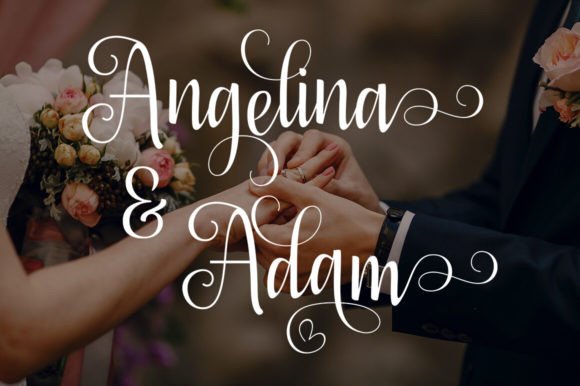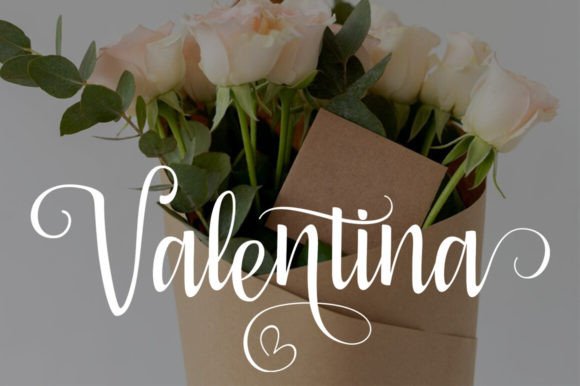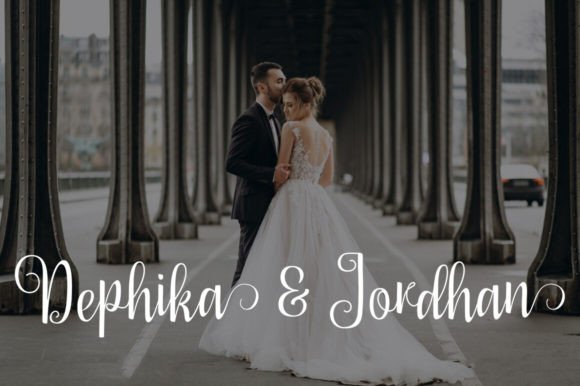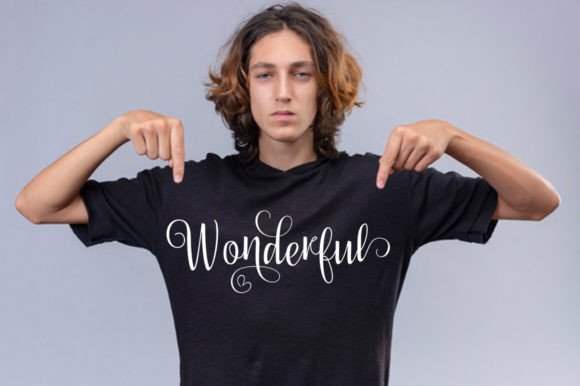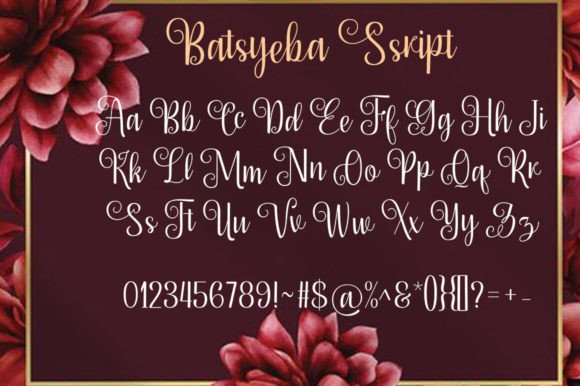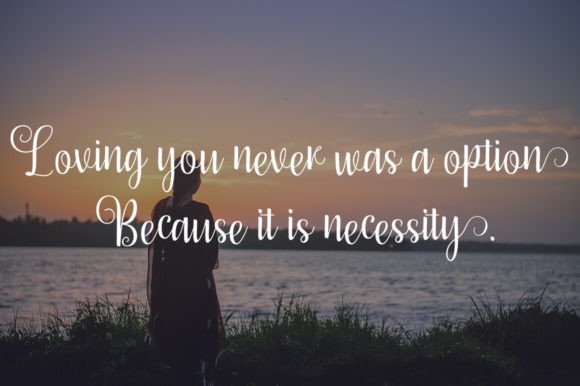
Unleashing Creativity with Batsyeba Font
As a designer, have you ever felt the rush of excitement when you stumble upon the perfect font for a project? It’s that moment when all the pieces come together, and your vision takes shape. For me, that moment came when I discovered the Batsyeba Script font. Its unique, irregular baseline and trendy, feminine style immediately caught my attention.
Batsyeba Font is a modern script font designed to add a touch of elegance to any project. Whether it’s a wedding invitation, a thank you card, or a logo, this font is sure to make a statement. With its initial and terminal letters, alternates, and multiple language support, designers will love the versatility and creativity it offers.
Batsyeba Font Key Features
- Unique Characteristic: Batsyeba Font features a unique blend of modern and vintage elements, creating a distinctive aesthetic that sets it apart from other fonts.
Batsyeba Font Review
First off, let me say that I’m impressed by the unique personality of the Batsyeba font. It’s like nothing I’ve ever seen before, and I love the quirkiness it brings to any design project. ✨ The bold, hand-drawn style is instantly recognizable and adds a touch of whimsy to any text.
One of the things I appreciate most about Batsyeba is its versatility. It works well for both digital and print projects, and its range of weights and styles makes it easy to find the perfect fit for any design need. ✨ The font is also surprisingly legible, considering its unconventional style.
- ⚠️ The font may not be suitable for formal or professional projects, as its quirky style may come across as unprofessional.
- ⚠️ Some of the characters, such as the lowercase ‘a’ and ‘e’, may be difficult to read at small sizes.
Overall, I think the Batsyeba font is a fantastic choice for designers who want to add a bit of personality to their projects. While it may have some limitations, its unique style and versatility make it a valuable addition to any font collection.
For best results, use Batsyeba Font in titles and headings to add a touch of elegance and sophistication to your designs.
Batsyeba Font is perfect for:
- Business cards and branding materials
- Magazine and book covers
Remember to use Batsyeba Font in conjunction with other design elements to create a cohesive and visually appealing design.
Alternatives to Batsyeba Font
Great Vibes is a beautiful, elegant script font perfect for creating a sophisticated and luxurious feel. It’s ideal for use in logos, branding, and packaging designs.
Comparison to Batsyeba Font: Great Vibes has a more refined and polished look, making it suitable for high-end designs. It lacks the quirky charm of Batsyeba Font but offers a more traditional script style.
Carolyna Pro is a modern script font that combines elegance with a touch of playfulness. It’s great for use in advertising, editorial, and social media designs.
Comparison to Batsyeba Font: Carolyna Pro has a more contemporary feel and is better suited for digital designs. It lacks the vintage charm of Batsyeba Font but offers a more versatile and dynamic look.